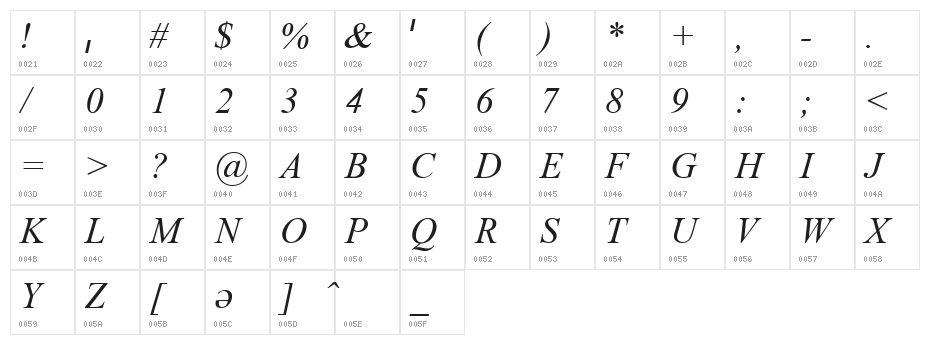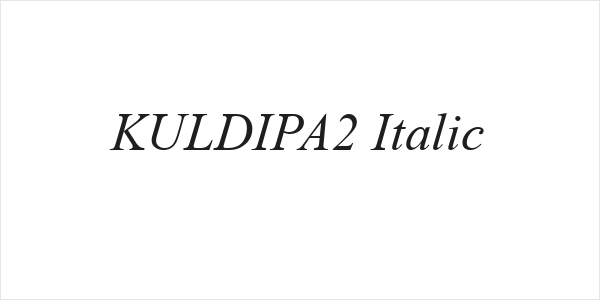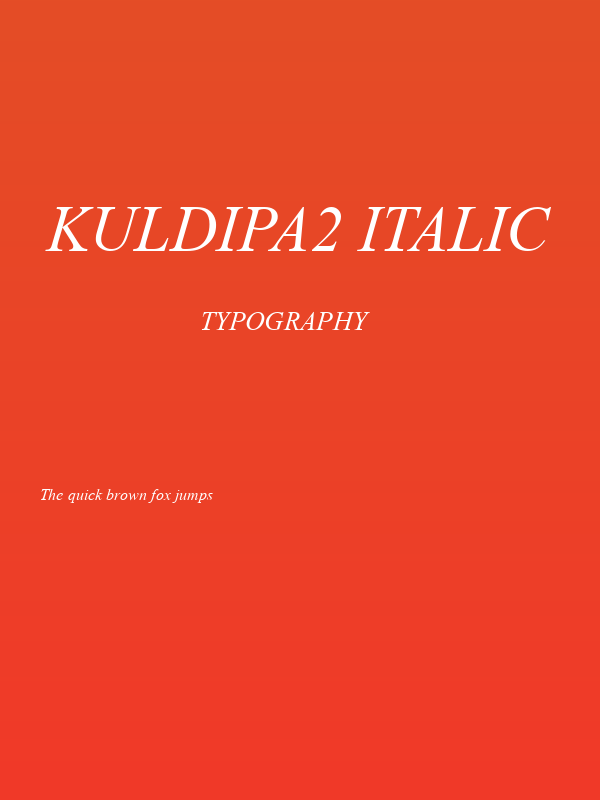
KULDIPA2 Italic Font
KULDIPA2 Italic Description
This elegant serif font features a classic italic style, characterized by its smooth, flowing lines and slight slant to the right. The uppercase letters are tall and refined, while the lowercase letters maintain a consistent and harmonious appearance. The numerals are well-proportioned, complementing the overall aesthetic. Special characters are crafted with the same attention to detail, ensuring versatility in various design contexts. The font's high contrast between thick and thin strokes adds to its sophisticated and timeless appeal.
| Proposed Projects | Ideal for projects requiring a touch of sophistication, such as wedding invitations, formal event programs, luxury branding, and editorial design. |